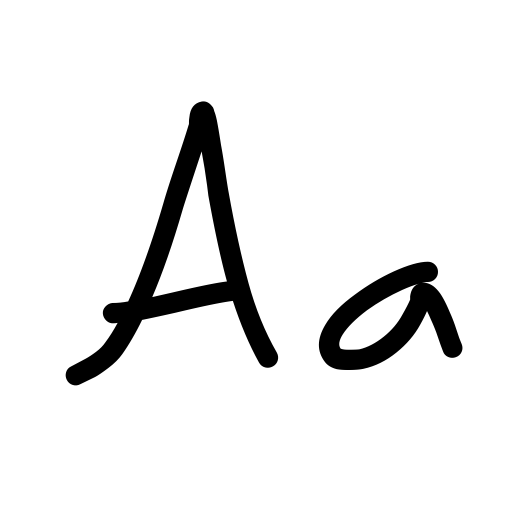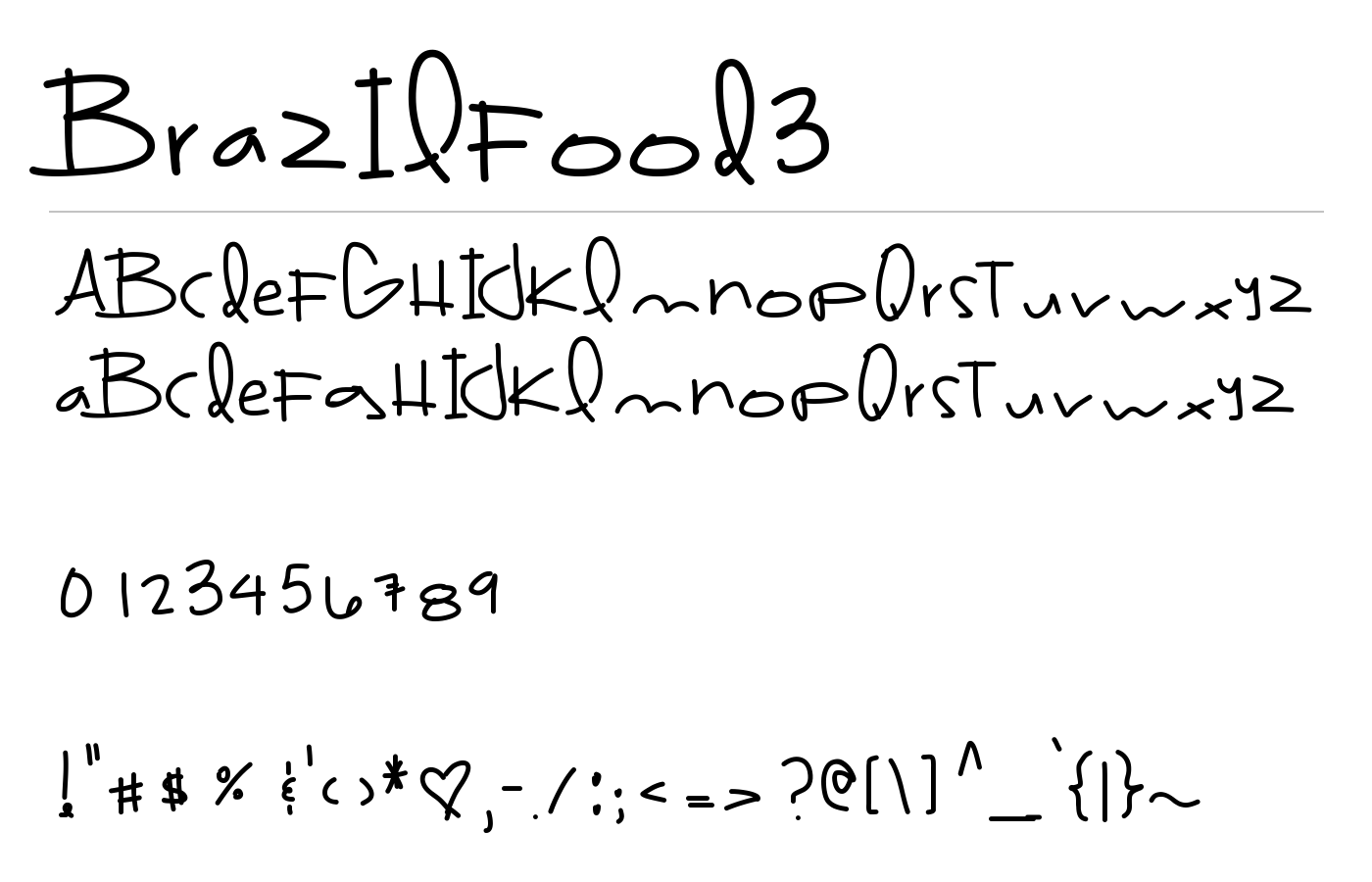
BrazilFood3 is a playful, handwritten-style font with a casual and friendly vibe. Its irregular, slightly tall letterforms and whimsical curves make it perfect for informal designs needing a personal, approachable touch, such as food packaging, children’s materials, or creative branding. The lively character shapes add charm and warmth, making text feel inviting and unique.
BrazilFood3 Font
About BrazilFood3 Font